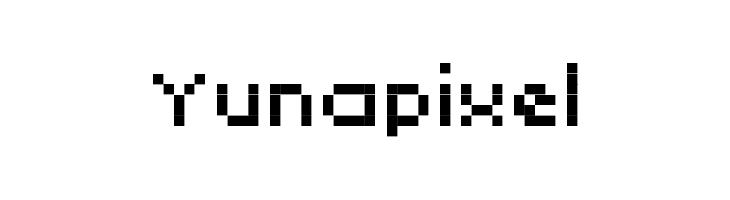
A pixelated, retro-style font inspired by classic video games.
A bold, pixelated font with a retro, 8-bit digital aesthetic.
A pixelated, retro font inspired by early digital graphics.